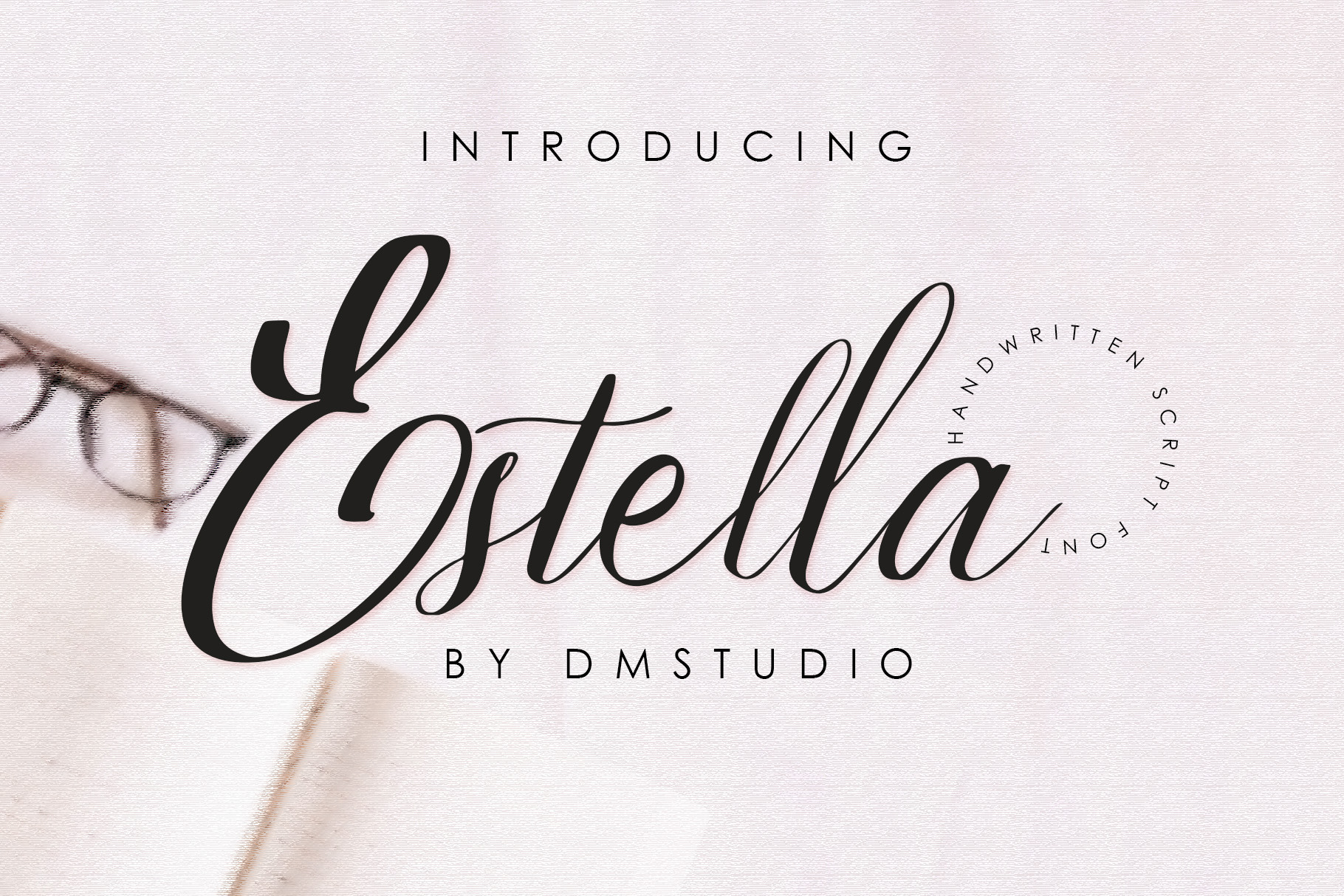
Estella the handwritten script font
Great choice and very easy to use for quotes, wedding card, invitation, website, promotion and the other projects.